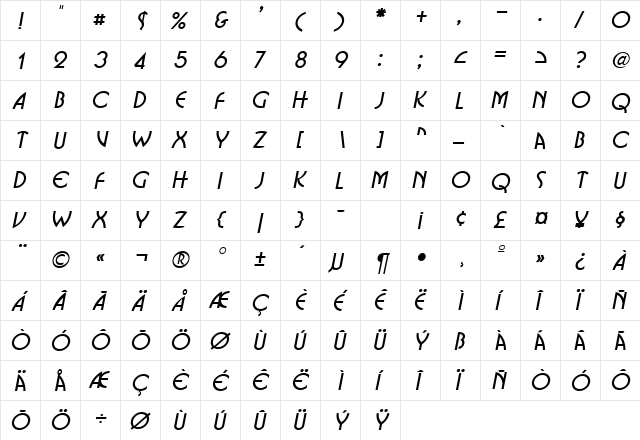
Zymurgy Oblique
Design Context for Zymurgy Typeface
Zymurgy takes a measured approach to typography — its balanced proportions and neutral character make it a reliable workhorse for both digital and print work. Its italic angle brings a sense of urgency and motion to the letterforms.
Pro Tip: Use Zymurgy for emphasis, pull quotes, and subheadings where its slanted energy can add rhythm to the layout.